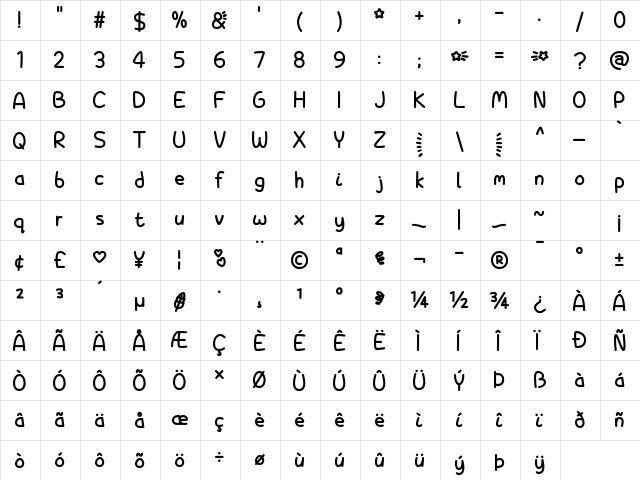
Unicorn Scribbles Regular
Design Context for Unicorn Scribbles Typeface
Unicorn Scribbles offers clean, dependable letterforms without strong stylistic allegiance, making it a practical choice for designers who need flexibility.